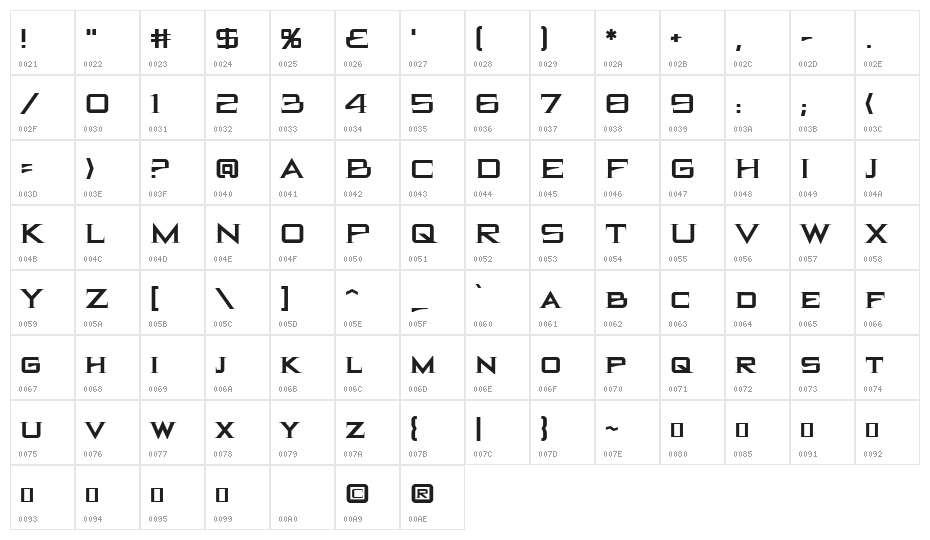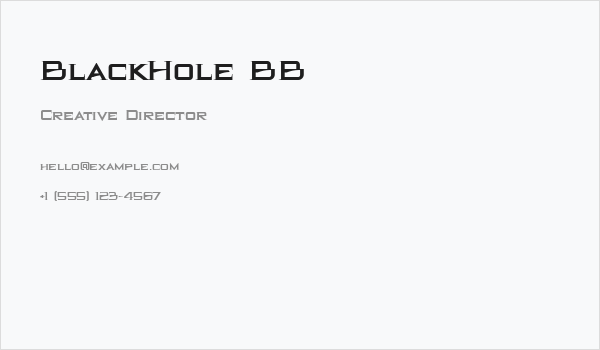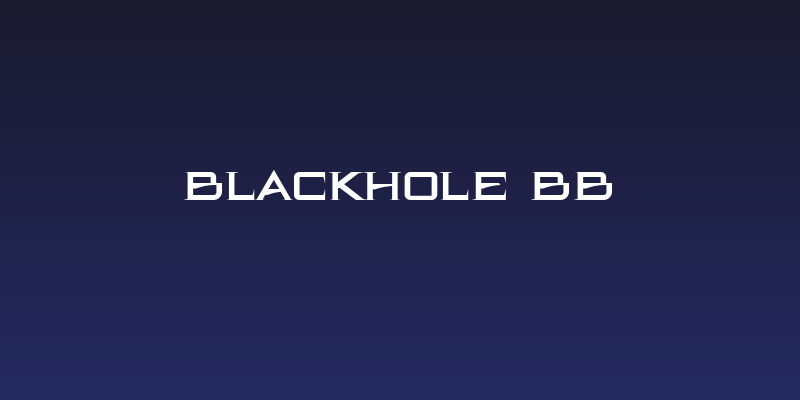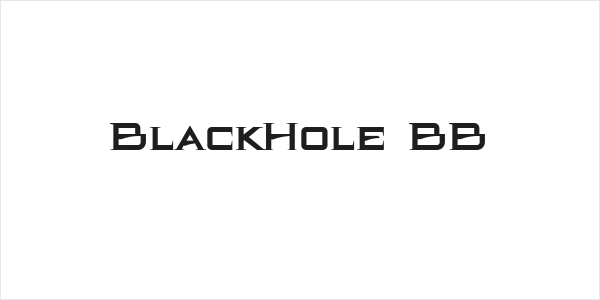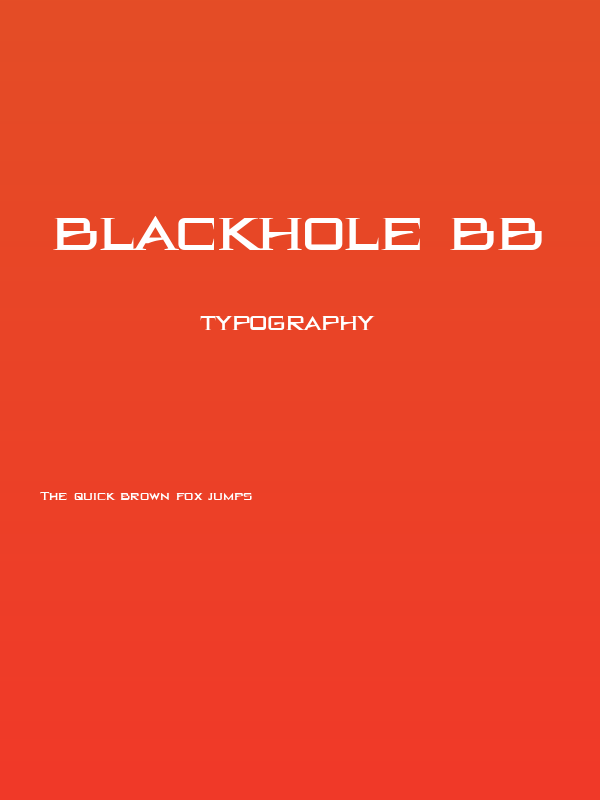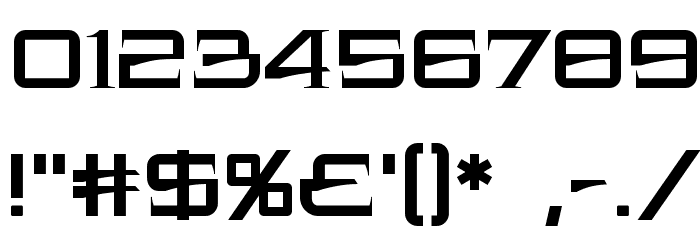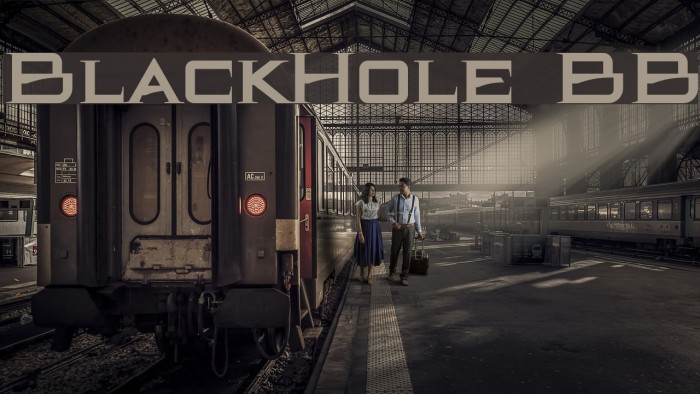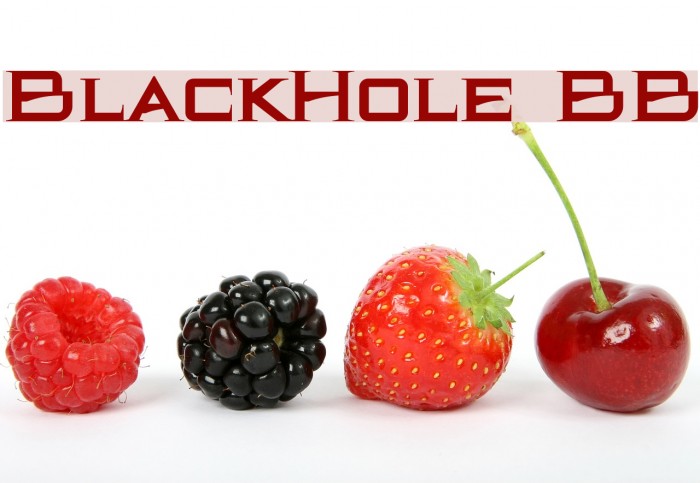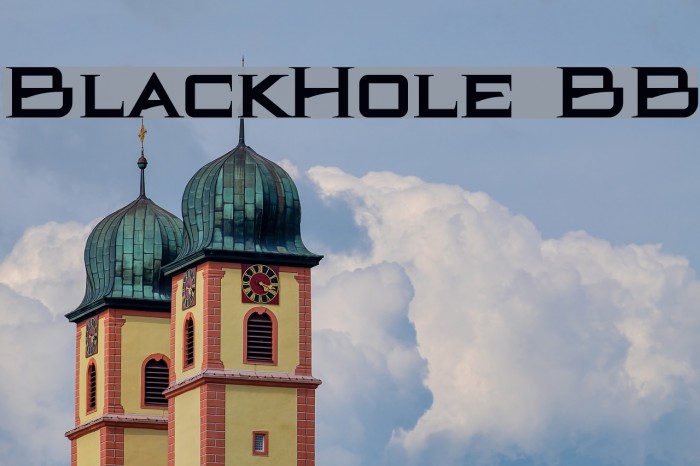
BlackHole BB Font
BlackHole BB Description
This font features a bold, futuristic design with sharp angles and geometric shapes. The uppercase letters are distinct with a strong presence, characterized by their angular cuts and dynamic slants. The lowercase letters maintain a consistent style, offering a cohesive look across the alphabet. Numbers are equally bold, with a modern aesthetic that complements the overall design. Special characters are crafted with the same attention to detail, ensuring they fit seamlessly with the rest of the font. This typeface is ideal for projects that require a modern, edgy feel, such as technology branding, sci-fi themes, or video game titles.
| Proposed Projects | Ideal for technology branding, sci-fi themes, video game titles, and modern posters. |